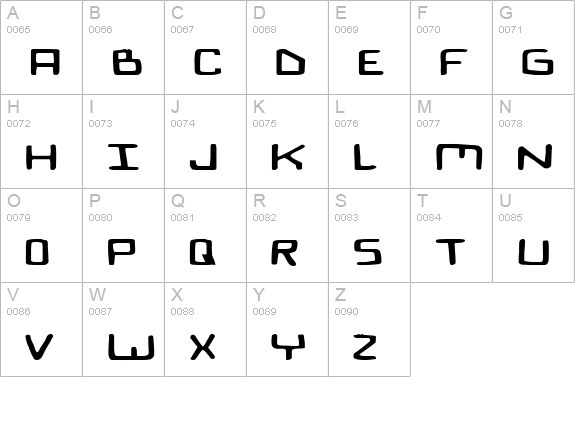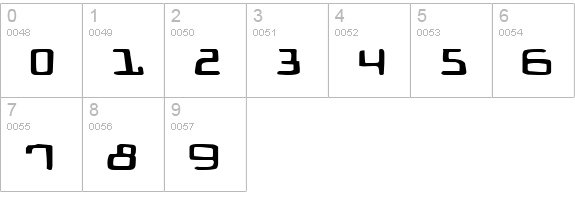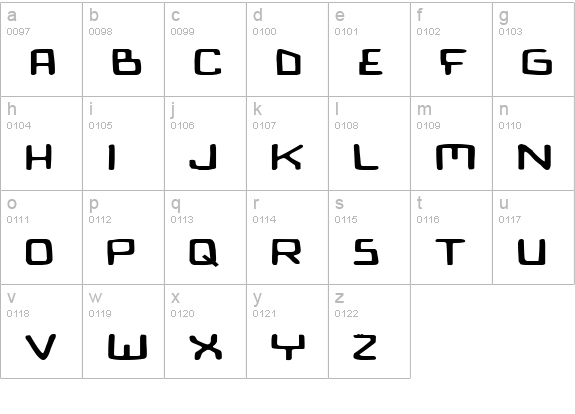
Bionic Comic Expanded Font Details
Bionic Comic Expanded is a distinctive, extended-width variant in the Bionic typeface family \xE2\x80\x94 well suited to design and typography projects.
Bionic Comic Expanded font is a bold and dynamic typeface that exudes a futuristic and technological vibe. Its sleek lines and sharp edges give it a modern and edgy appearance, perfect for creating eye-catching designs. This font is designed to make a statement and stand out from the crowd. What sets Bionic Comic Expanded font apart is its versatility - it can be used for a wide range of design projects, from posters and flyers to logos and branding. Its expanded version provides extra impact and presence, making it a great choice for headlines and titles. Best of all, Bionic Comic Expanded font is available for free download at FontsMarket.com. This means you can easily access this stylish and attention-grabbing font for your projects without breaking the bank. Don't miss out on the opportunity to enhance your designs with this unique and striking typeface - download Bionic Comic Expanded font today!